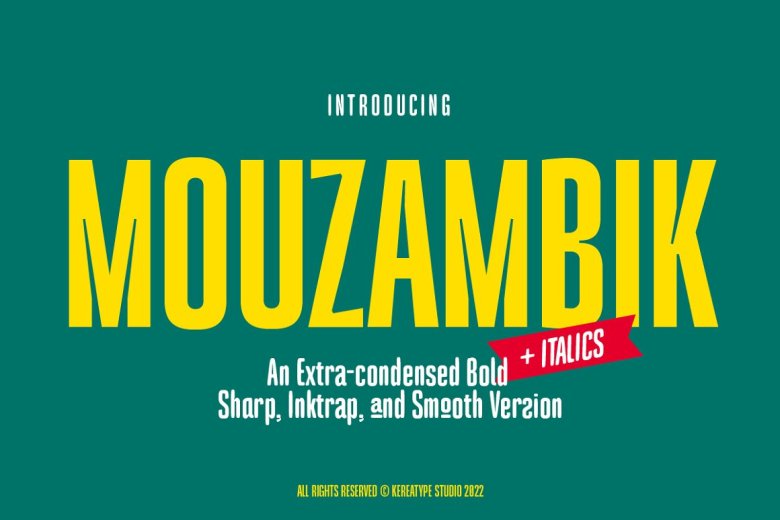
Mouzambik Font
MOUZAMBIK stands out with its complex yet bold personality. A condensed sans-serif font, MOUZAMBIK comes in three styles – Regular, Inktrap and Smooth with italics – designed for large point sizes but still great at smaller point sizes. Perfect for headlines, magazines, websites, posters branding and logos alike; its wide array of ligatures, alternative characters and features allow users to make each project truly individual.
Mouzambik Sans Serif Font